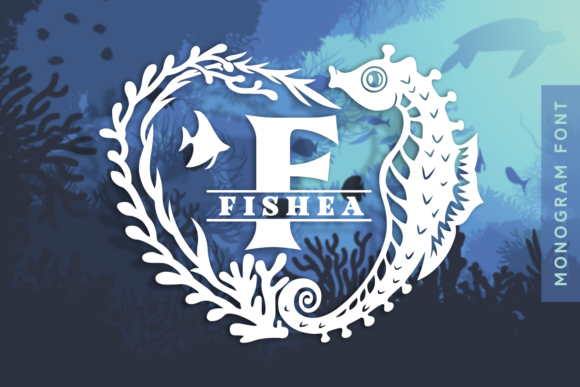
Step into the world of delightful designs with Fishea Font, a decorative masterpiece waiting to ignite your creativity. This meticulously crafted font is designed to leave a lasting impression with its remarkable detailing and captivatingly playful charm.
At the heart of Fishea Font lies its intricate and unique character design. Each letterform dances with delicate details, swirling like leaves in the wind, adding a touch of whimsy and elegance to your creations. Whether you're crafting children's games, cartoon-inspired designs, or any project yearning for a sprinkle of enchantment, Fishea Font is your ultimate companion.
Feel the freedom to express your creativity without bounds as Fishea Font effortlessly adapts to a myriad of projects. Let your imagination soar as you create eye-catching posters, enchanting logos, vibrant invitations, and social media posts that demand attention. This font's versatility knows no limits, making it an indispensable asset to your creative arsenal.
Experience the allure of a font that oozes charm and captivates hearts. With Fishea Font, you can effortlessly add a dash of sophistication to your projects while maintaining a lighthearted and approachable tone. Its playful nature is sure to resonate with audiences of all ages, leaving a lasting and unforgettable impression wherever it is used.